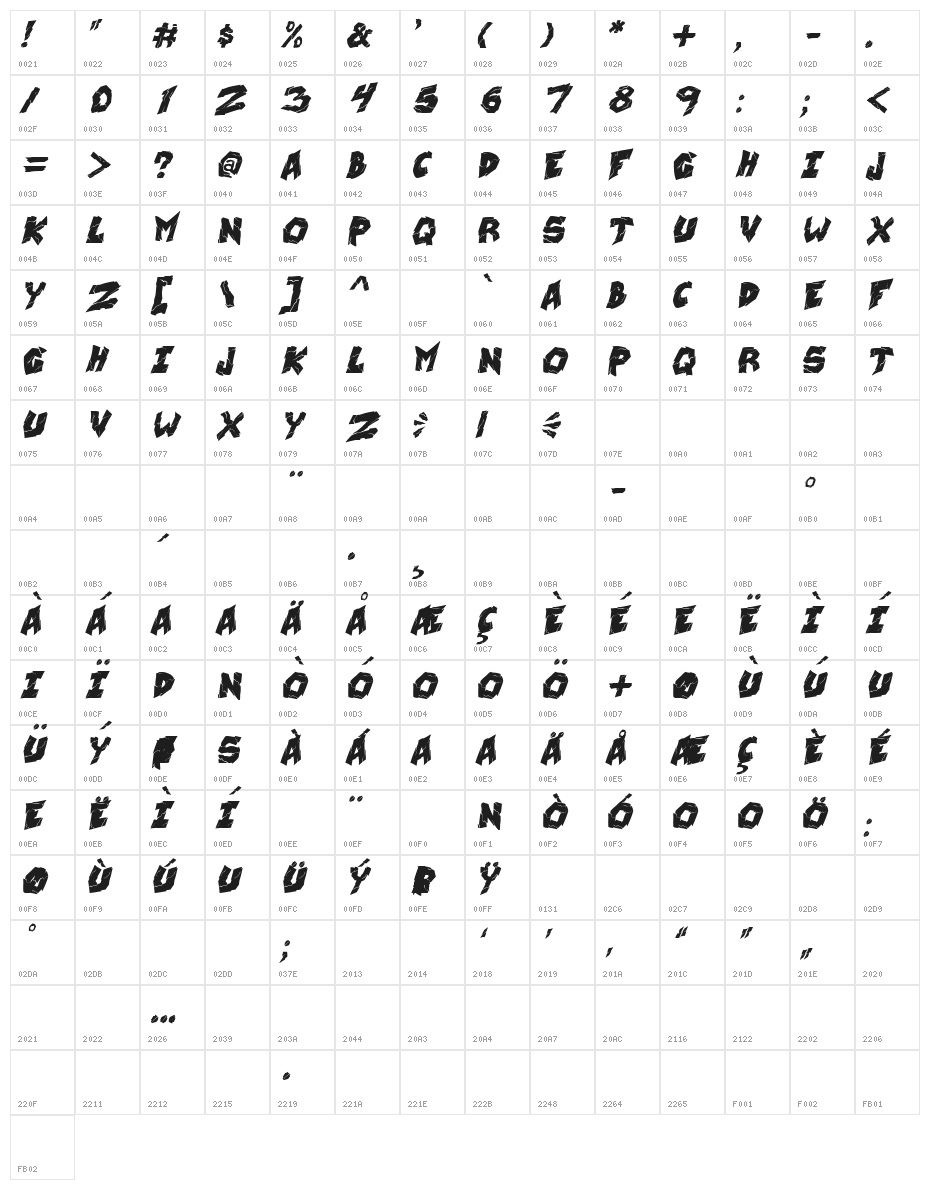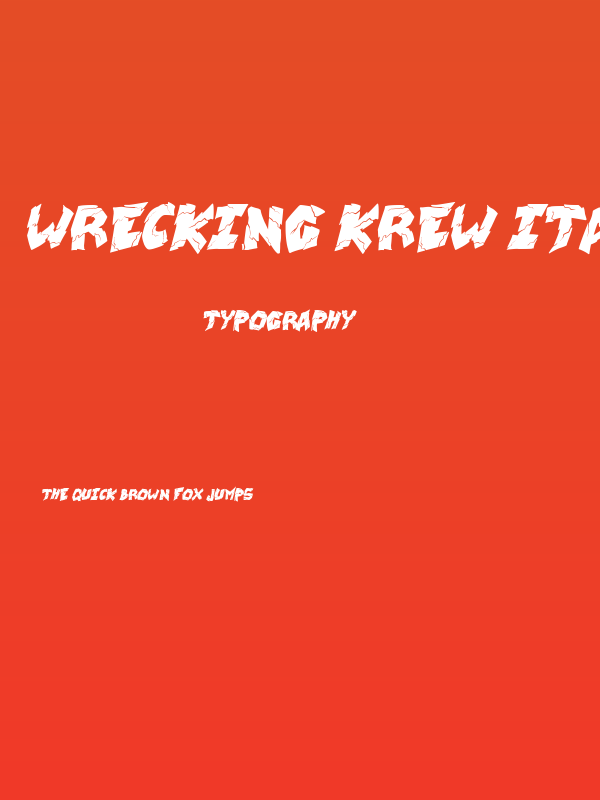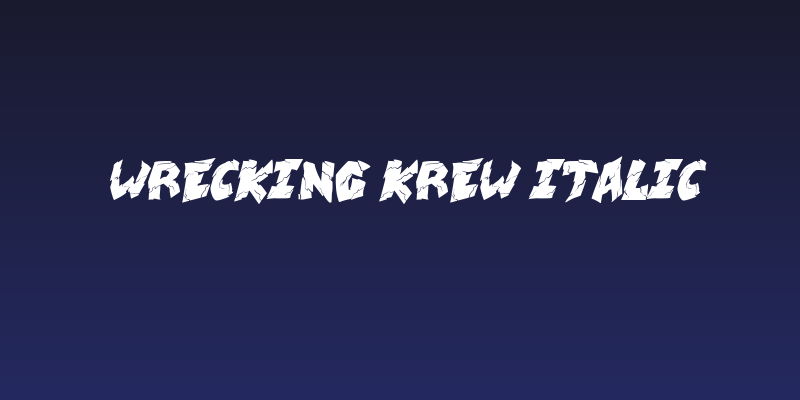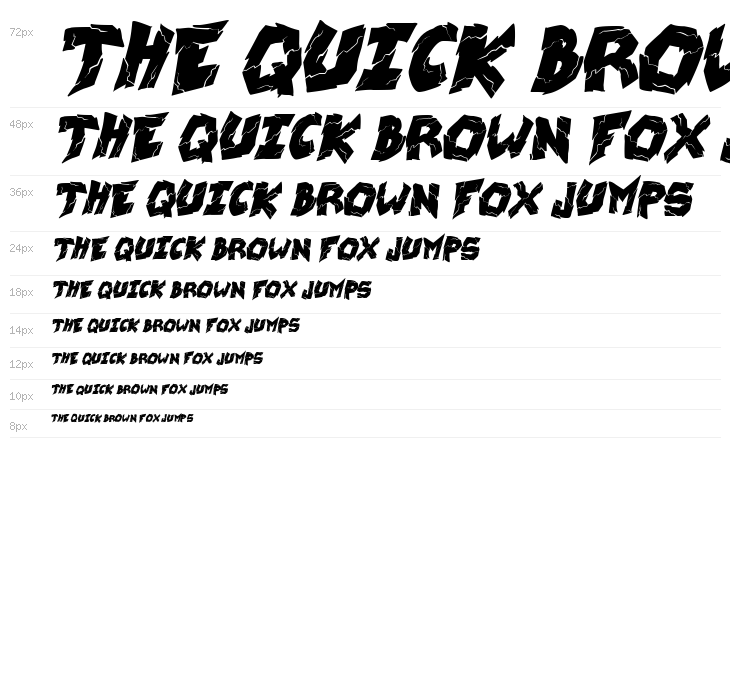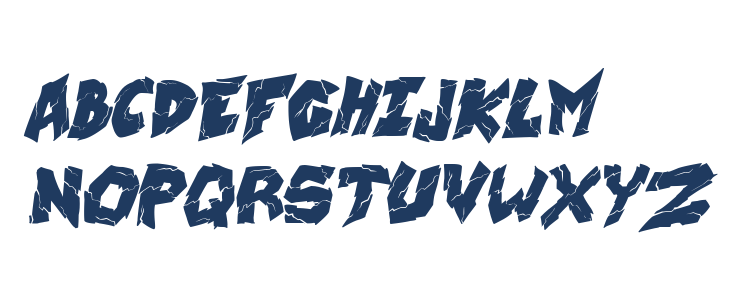
wrecking krew Italic Font
wrecking krew Italic Description
This font features a bold, jagged style with sharp, angular edges that give it a dynamic and aggressive appearance. The letters are heavily stylized, resembling shattered glass or torn paper, which adds a sense of movement and energy. The italic slant enhances the sense of speed and urgency, making it ideal for impactful and eye-catching designs. The uppercase and lowercase letters maintain a consistent style, with numbers and special characters following the same aesthetic. This font is perfect for projects that require a bold statement or a rebellious, edgy look.
| Overall Style | Modern, Edgy |
| Proposed Projects | Ideal for music album covers, extreme sports branding, video game titles, and edgy poster designs. |